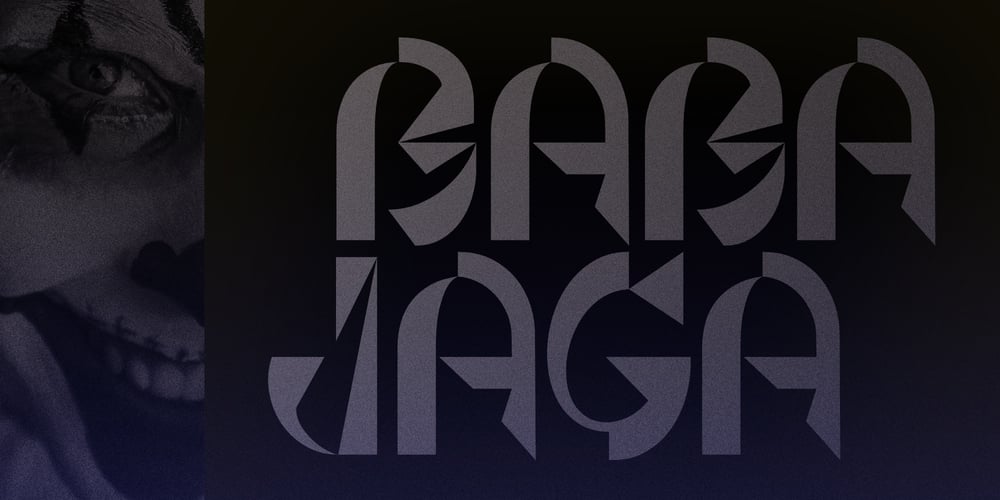
Baba Jaga Font Family was designed by Michael Kovacevich and published by MKGD. Baba Jaga contains 1 styles and family package options. Baba Jaga is a font you may want to turn to if you’re in need of something eye catching, if not, eye gouging! Thinking of something horrific? Something distressing? Baba Jaga is your go to font,Whether you’re putting together a flyer for a Halloween party, or trying to put a little “oomph” into a poster that needs a little something jarring, Baba Jaga may just be what you’re looking for. See for yourself…if you dare! (ok, that was a bit corny, but it wouldn’t have been if it was set in Baba Jaga!)There is no lower case for Baba Jaga as it is a display font. The Upper case version serves both the upper and lower case keys.Baba Jaga has a glyph count of 390 and supports the following languages;Afrikaans, Albanian, Asu, Basque, Bemba, Bena, Bosnian, Catalan, Chiga, Colognian, Cornish, Croatian, Czech, Danish, Embu, English, Esperanto, Estonian, Faroese, Filipino, Finnish, French, Friulian, Galician, German, Gusii, Hungarian, Icelandic, Indonesian, Irish, Italian, Kabuverdianu, Kalaallisut, Kalenjin, Kamba, Kikuyu, Kinyarwanda, Latvian, Lithuanian, Low German, Lower Sorbian, Luo, Luxembourgish, Luyia, Machame, Makhuwa-Meetto, Makonde, Malagasy, Malay, Maltese, Manx, Meru, Morisyen, North Ndebele, Norwegian Bokmål, Norwegian Nynorsk, Nyankole, Oromo, Polish, Portuguese, Romanian, Romansh, Rombo, Rundi, Rwa, Samburu, Sango, Sangu, Scottish Gaelic, Sena, Shambala, Shona, Slovak, Slovenian, Soga, Somali, Spanish, Swahili, Swedish, Swiss German, Taita, Teso, Turkmen, Upper Sorbian, Vunjo, Walser, Zulu